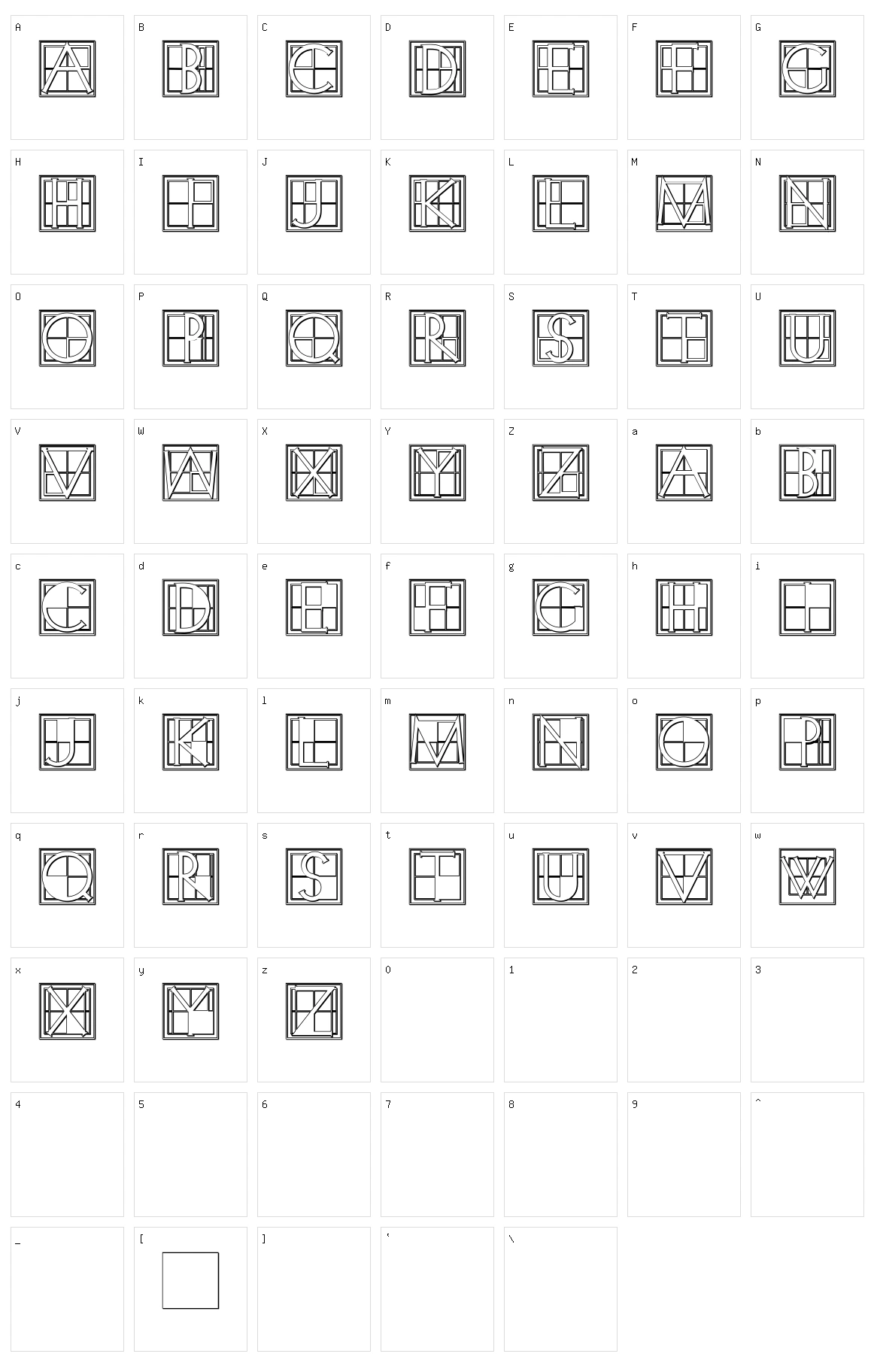
Xperimentypo Series
Formen sind wichtiger als Kommunikation? Ja, beim Experimentieren. Es geht noch gar nicht um Kommunikation. Es geht zunaechst darum, den Aufbau der Zeichen zu modifizieren.
Wenn ich einen Buchstaben V in vier Richtungen drehe, bekommt er verschiedene Bedeutungen: nach rechts gedreht, sieht er aus wie ein altes C, aus aus einer roemischen Inschrift, im Verbund mit anderen Zeichen aber immer als C zu erkennen.
Spiegele ich das V senkrecht, kann man es auch als A erkennen, selbst, wenn ich dessen Querstrich weglasse. Drehe ich das V nach links, ist es offensichtlich ein Pfeil, der nach rechts weist. -
So ist das mit vielen unserer lateinischen Zeichen. Es geht bei meiner Serie XperimenTypo darum, solche Dinge zu entdecken und neu zu nutzen. Ich nehme die Zeichen auseinander, um sie vielleicht neu zusammenzusetzen. Die Ergebnisse fuehren nicht unbedingt zu neuen Brotschriften. Aber oft zu neuen Logos oder Bildern, die man in der visuellen Kommunikation nutzen kann. Spielen Sie mit den Zeichen. Entdecken Sie Schriften neu. 26 Buchstaben speichern alles Wisssen der Welt. Sie sind die Atome menschlichen Denkens.
Is form more important than communication?
Well yes, in experiments, it is, because
it does not concern communication yet.
In fact, it is about the construction and
modification of the glyphs.
For example, when I turn the letter V in the
four directions, its meaning changes. Turned
to the right, it looks like a C from
a roman stone inscription.
If the V is vertically mirrored, it could
be considered as an A, despite the absence of
the horizontal bar. If I turn the V to the left,
then it becomes the tip of an arrow.
Many of our Latin characters work this way.
My XperimenTypo series deal with the discovery
and utility of those properties.
I disassemble the characters, and reassemble
them differently. This process does not
lead to grand text faces, but it may result
in interesting logos and images.
So, play with the characters, and discover
new type faces. Because all of the world's
knowledge is stored using just 26 characters.
They are the atoms of human thought.